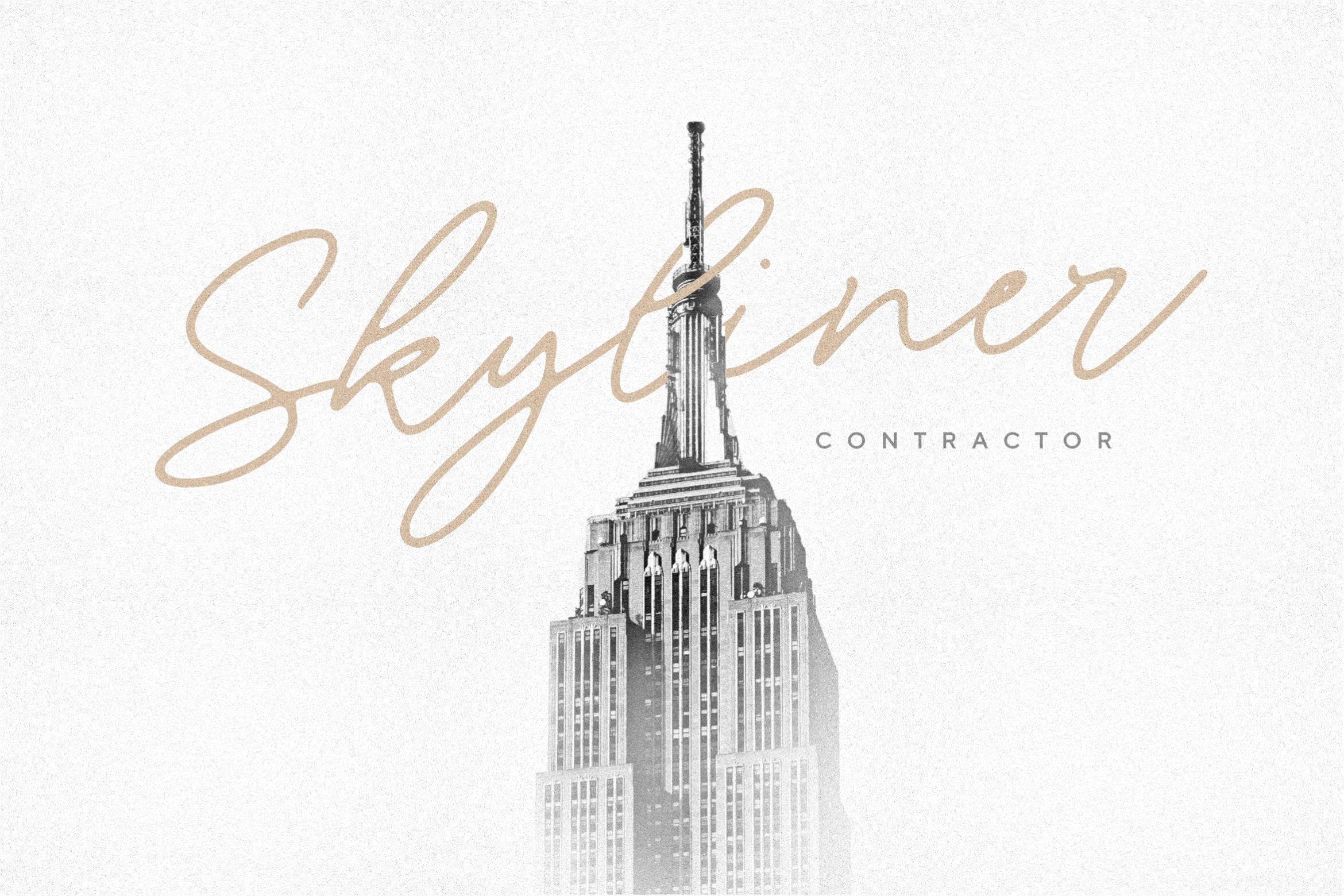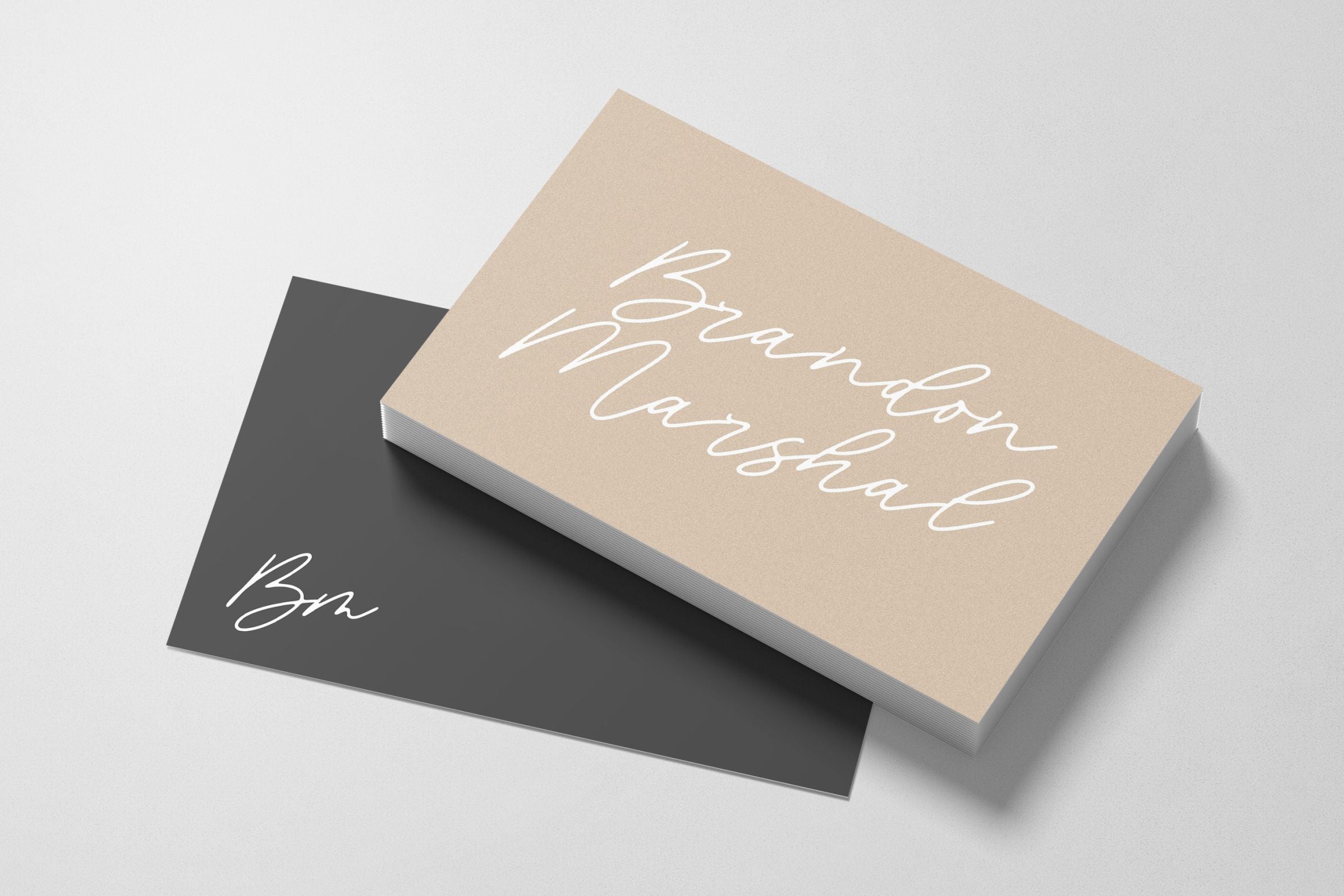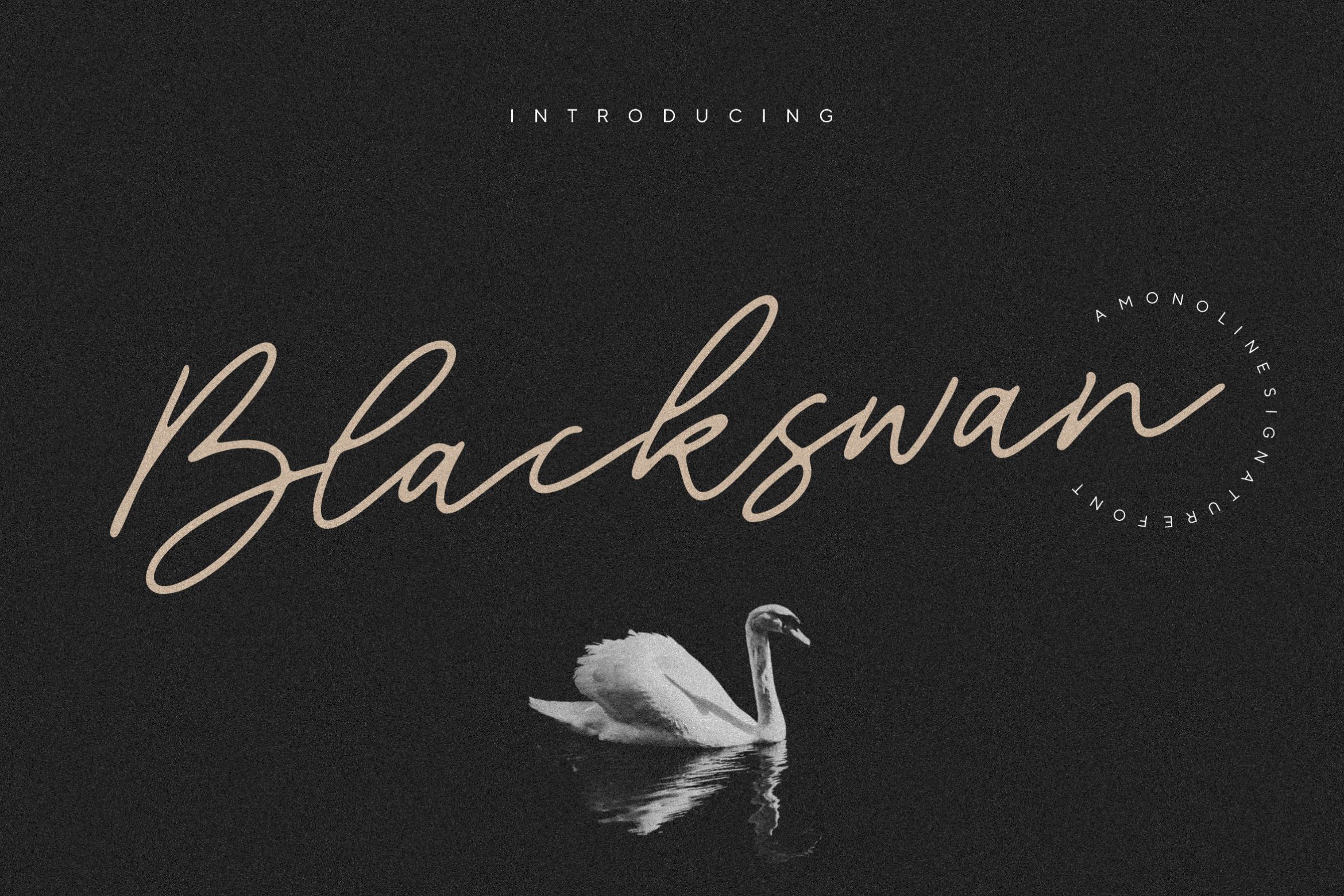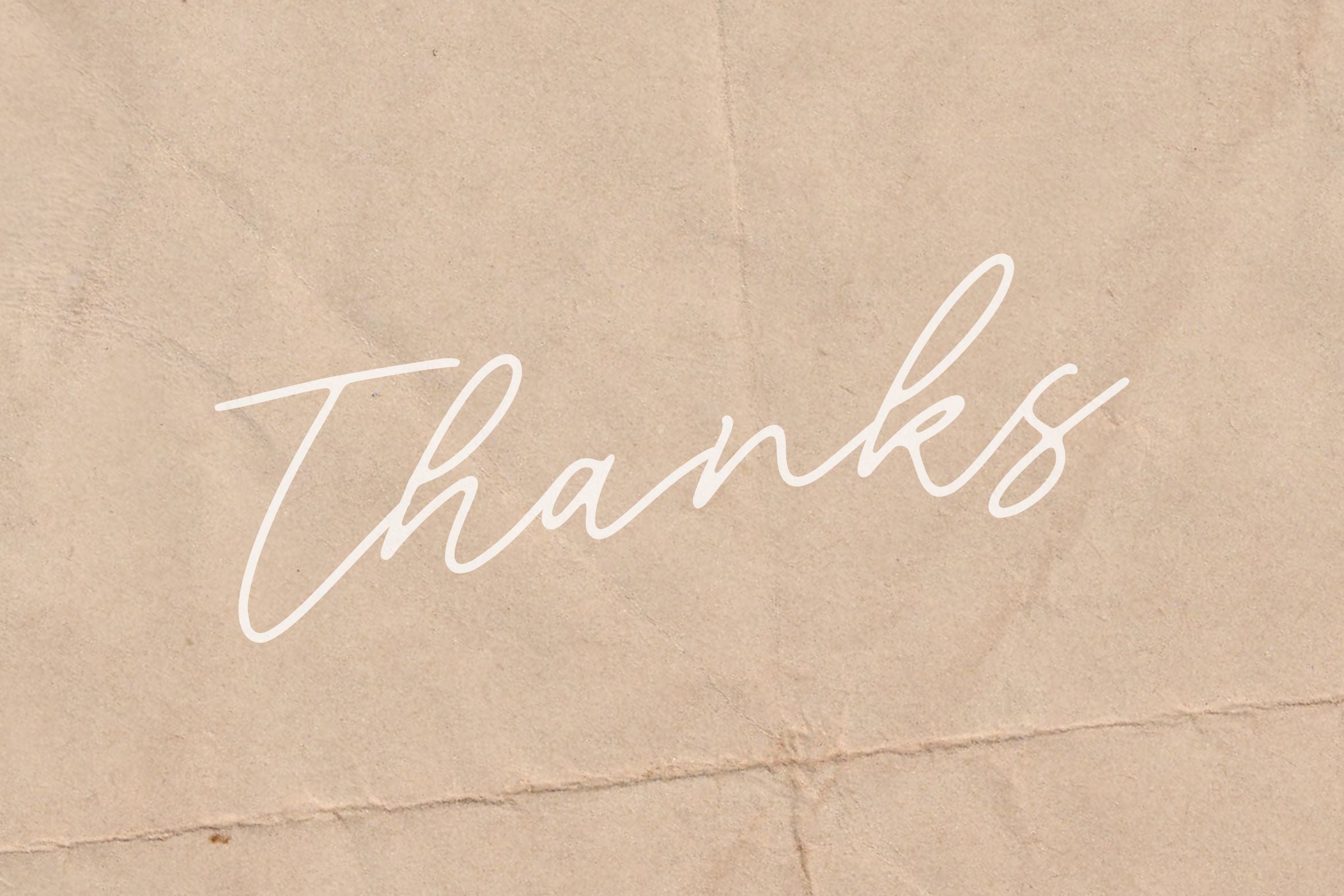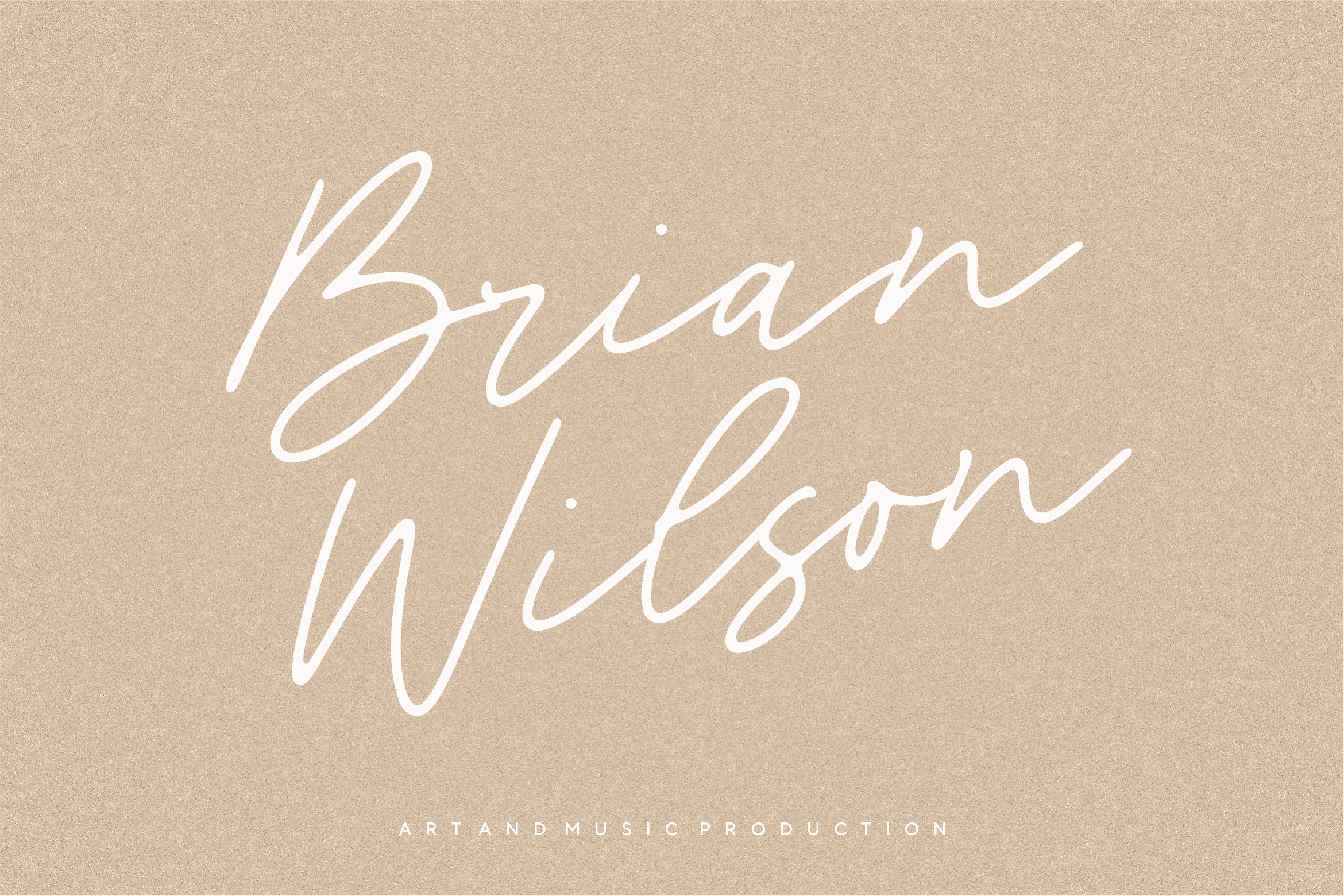
About Blackswan Monoline Signature Font
Introducing by Letterative Studio : Blackswan Font Blackswan is a Monoline Signature Font Blackswan is perfect for product packaging, branding project, megazine, social media, wedding, or just used to express words above the background. This font includes : TTF and OTF Blackswan also multilingual support Enjoy the font! Feel free to comment or feedback Send me PM or email Thank you!